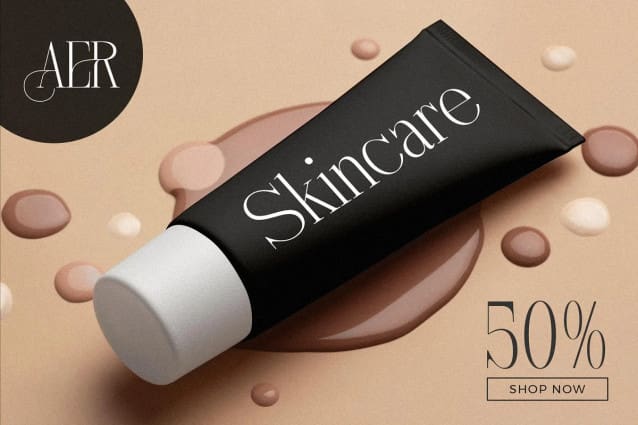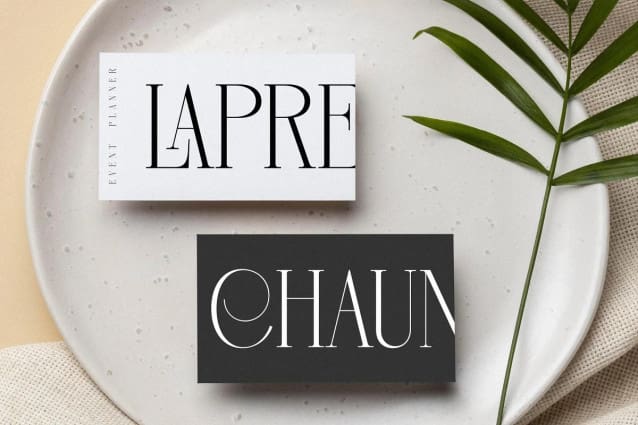
Nebiard Font
Nebiard Font, created by Storytype, A serif modern and classic typeface that has own unique style & modern look. This typeface is perfect for an elegant & luxury logo, book or movie title design, fashion brand, magazine, clothes, lettering, quotes, and so much more.